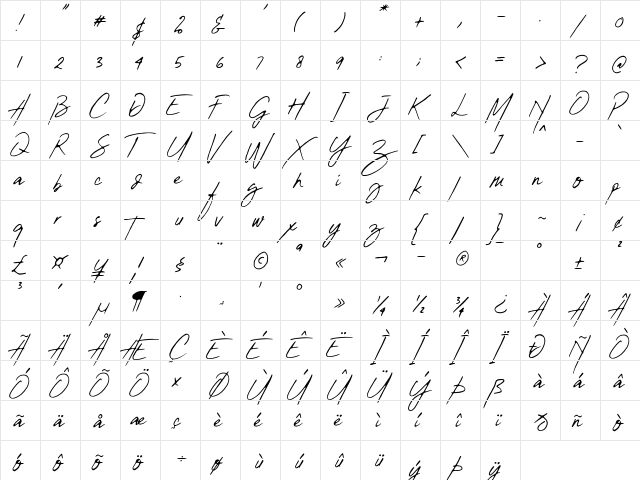
Gloriousity One Regular
| Designer | Seno Aji Letter 2019 |
Design Context for Gloriousity One Typeface
Gloriousity One is a composed and adaptable typeface that performs quietly and consistently across a wide range of design contexts.